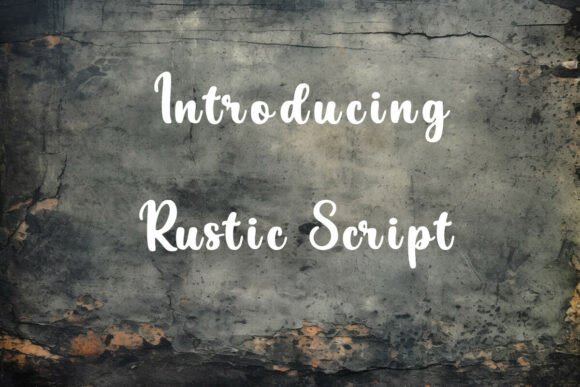
Unveiling the Magic of Rustic Script Font
Have you ever found yourself stuck in a creative rut, staring at a blank page or screen, waiting for inspiration to strike? For designers and crafty enthusiasts alike, the perfect font can be the spark that sets the imagination ablaze. And that’s exactly what the Rustic Script Font does – it brings a touch of rustic sophistication to any creative project, infusing it with a sense of charm and elegance that’s hard to resist.
As a valuable design resource, the Rustic Script Font is a game-changer for anyone looking to elevate their work. With its strikingly versatile style, it’s perfect for a wide range of applications – from high-quality prints and SVG files to stickers and social media graphics. Whether you’re working on a personal or professional project, this font is sure to add a touch of magic to your design, making it stand out from the crowd.
Key Features of Rustic Script Font
- Unique, Hand-Drawn Design: Rustic Script Font features a beautiful, hand-drawn design perfect for adding a personal touch to your creative project.
- High-Quality Typography: This font is designed to provide high-quality typography, making it ideal for use in design projects where a premium feel is required.
- Transparent Background: The transparent background of this font allows for easy layering and customization in design applications, making it a valuable design resource.
- High Resolution: Rustic Script Font is designed at a high resolution of 300 DPI, making it suitable for use in a range of design projects, from print to digital applications.
- Perfect for Creative Projects: This font is ideal for use in creative projects, such as wedding invitations, greeting cards, and other designs where a unique, handwritten look is required.
Honest Review: Rustic Script Font
I recently came across the Rustic Script Font while searching for a unique design resource for my creative project. The moment I laid eyes on it, I knew I had to give it a try. After using it for a while, I’m excited to share my honest review with you.
- The Rustic Script Font has a high quality and smooth texture that gives it a natural, handwritten feel.
- It’s incredibly versatile and can be used for a wide range of design projects, from wedding invitations to food labels.
- The font may not be suitable for professional or formal designs, as it has a more casual, rustic feel.
Overall, I’m thoroughly impressed with the Rustic Script Font and would highly recommend it to anyone looking for a unique and high-quality design resource for their creative project.
Rustic Script Font
The Rustic Script Font is a high-quality design resource perfect for adding a touch of elegance to your creative project. With its beautiful, handwritten style, this font is ideal for creating invitations, wedding stationery, and other special occasion materials.
Tips for Getting the Most Out of Rustic Script Font
To get the most out of the Rustic Script Font, experiment with different font sizes, colors, and combinations. You can also use it in conjunction with other design elements, such as graphics and images, to create a unique and eye-catching design.
Yes, the Rustic Script Font is available as a free download. This makes it an excellent design resource for designers of all levels, from hobbyists to professionals. Whether you’re working on a personal project or a commercial design, the Rustic Script Font is a great choice.